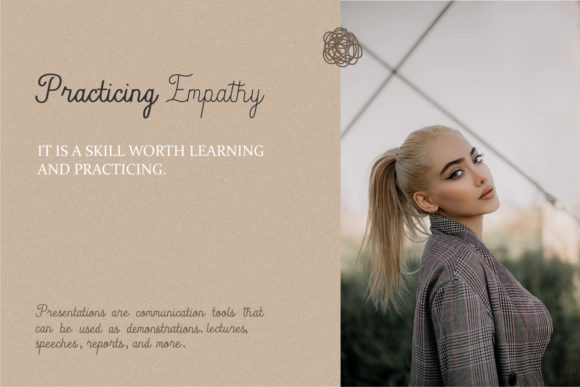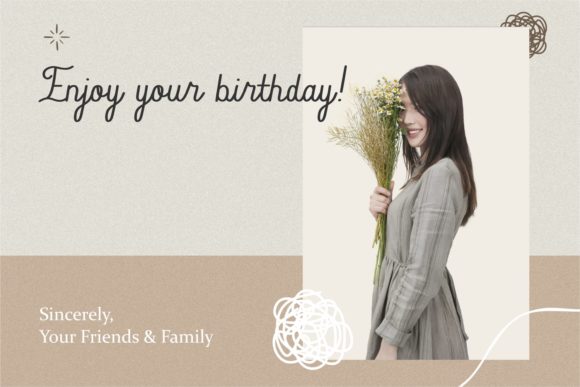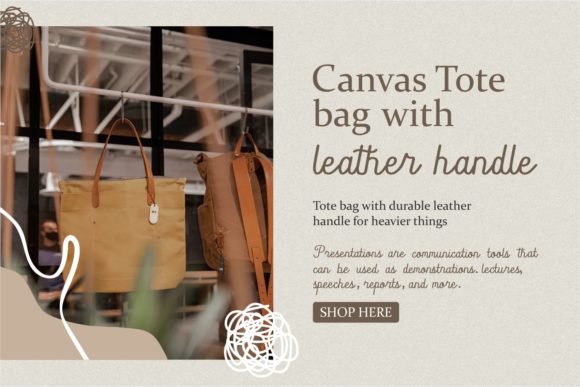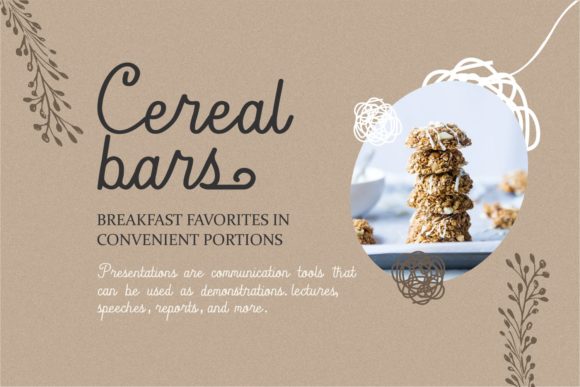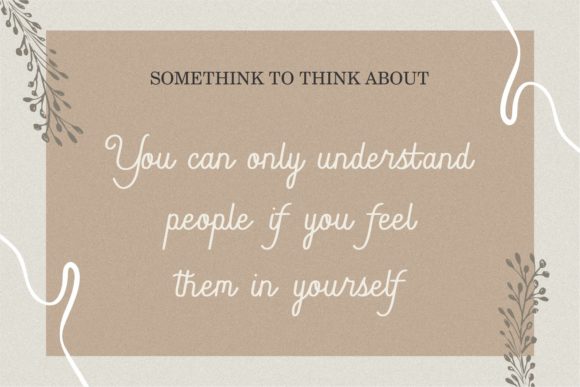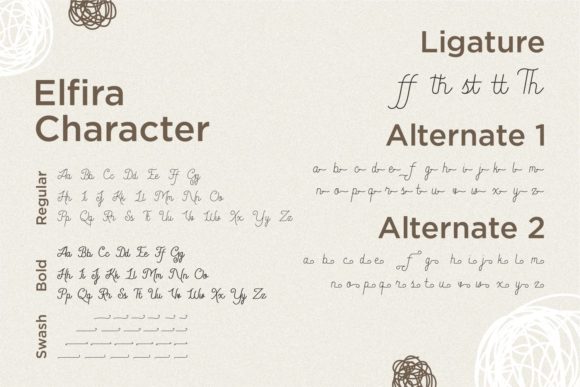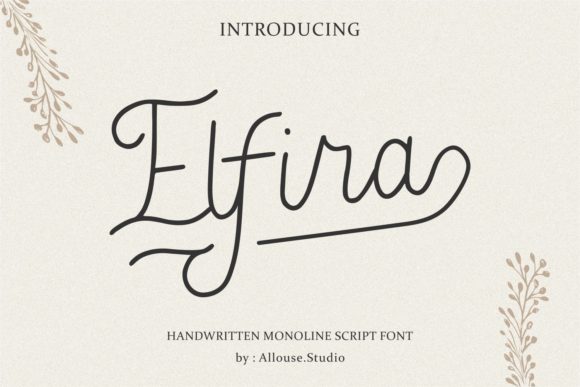
Introducing Elfira Font: The Epitome of Elegance and Sophistication
In the realm of typography, few fonts manage to convey the essence of elegance and sophistication as effortlessly as Elfira Font. This delicate, thin, and elegant handwritten font has been making waves in the design community, and for good reason. Its versatility, charm, and intricate details make it an ideal choice for a wide range of design projects, from wedding invitations to business cards.
The Characteristics of Elfira Font
Elfira Font is a masterpiece of modern calligraphy, boasting a unique blend of classic charm and contemporary flair. Its most striking features include:
- Delicate and Thin Lines: Elfira’s lines are remarkably thin and delicate, lending an air of refinement and poise to any design.
- Elegant Handwritten Style: The font’s handwritten style is both fluid and expressive, evoking a sense of warmth and personality.
- PUA Encoding: Elfira Font is PUA (Private Use Area) encoded, which means that accessing glyphs and swashes is a breeze. This feature allows designers to unlock the full creative potential of the font.
Elfira Font’s versatility is one of its most compelling attributes. Its elegant and refined aesthetic makes it suitable for a diverse range of design projects, including:
- Wedding Invitations: Add a touch of romance and sophistication to your wedding invitations with Elfira Font.
- Thank You Cards: Express your gratitude in style with Elfira’s beautiful, handwritten script.
- Quotes and Greeting Cards: Bring your quotes and greeting cards to life with Elfira’s elegant and refined typography.
- Logos and Business Cards: Elevate your brand’s visual identity with Elfira’s unique and sophisticated font.
Why Designers and Crafters Love Elfira Font
Designers and crafters have fallen in love with Elfira Font for a variety of reasons:
- Easy to Use: Elfira Font is incredibly easy to use, even for those without extensive design experience.
- Highly Customizable: With PUA encoding, designers can easily access and customize glyphs and swashes to suit their creative vision.
- Unique and Versatile: Elfira Font’s distinctive style and versatility make it an excellent addition to any designer’s font collection.
Tips for Getting the Most Out of Elfira Font
To unlock the full potential of Elfira Font, consider the following tips:
- Experiment with Pairings: Combine Elfira Font with other fonts to create visually striking and harmonious typography.
- Play with Swashes: Take advantage of Elfira’s PUA encoding to add custom swashes and glyphs to your designs.
- Pay Attention to Line Spacing: Adjust line spacing to create a sense of flow and rhythm in your text.
In conclusion, Elfira Font is a true gem in the world of typography. Its delicate, thin, and elegant handwritten style makes it an ideal choice for designers and crafters seeking to add a touch of sophistication and refinement to their projects. With its PUA encoding, versatility, and ease of use, Elfira Font is sure to become a staple in any designer’s font collection.